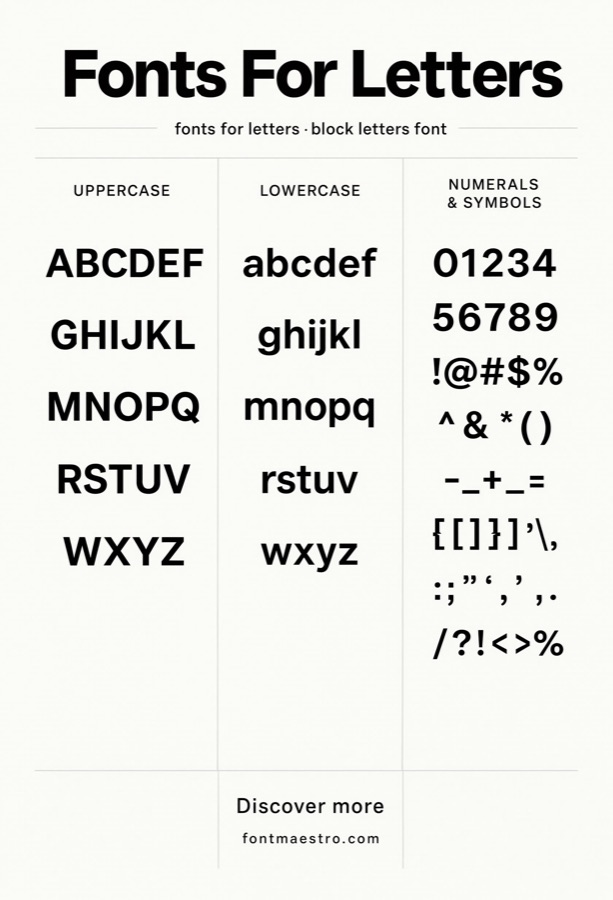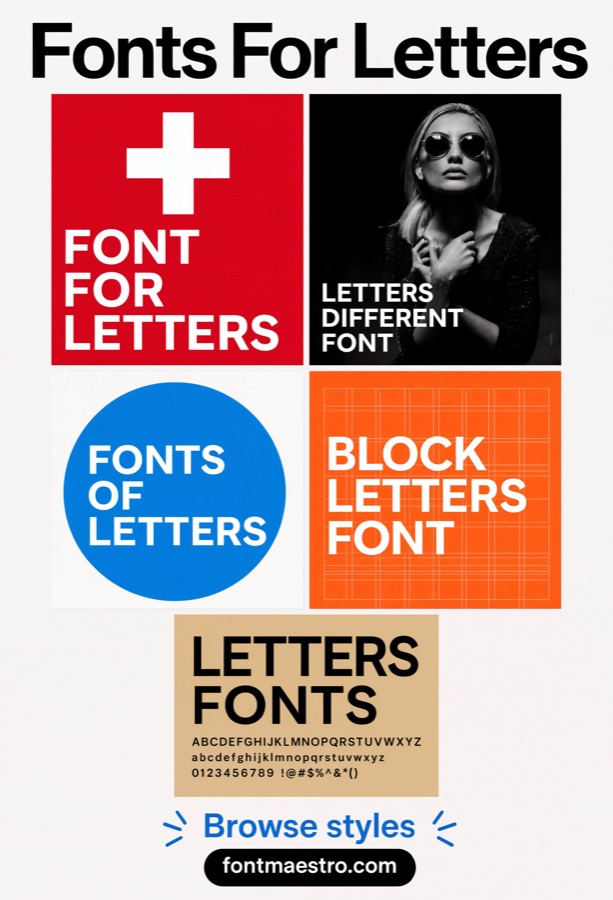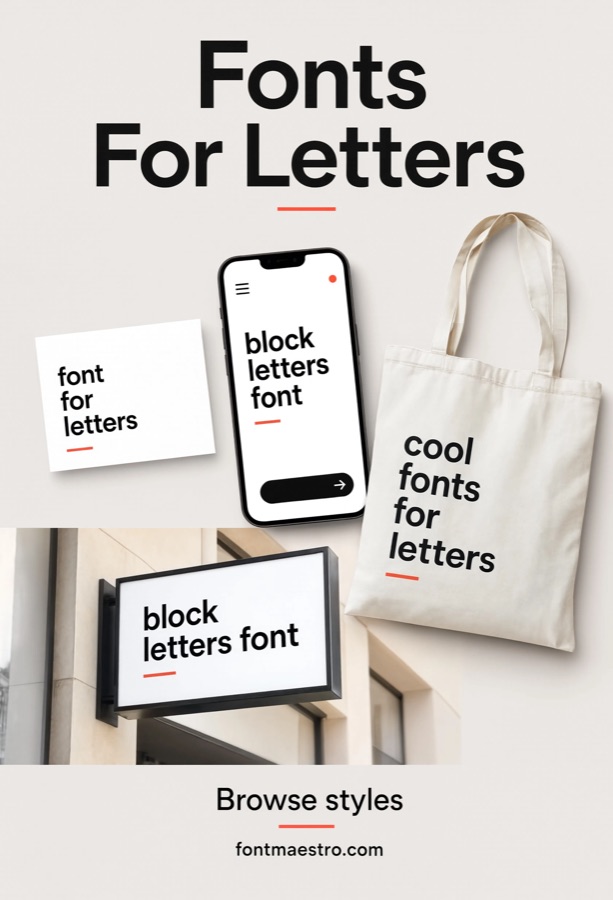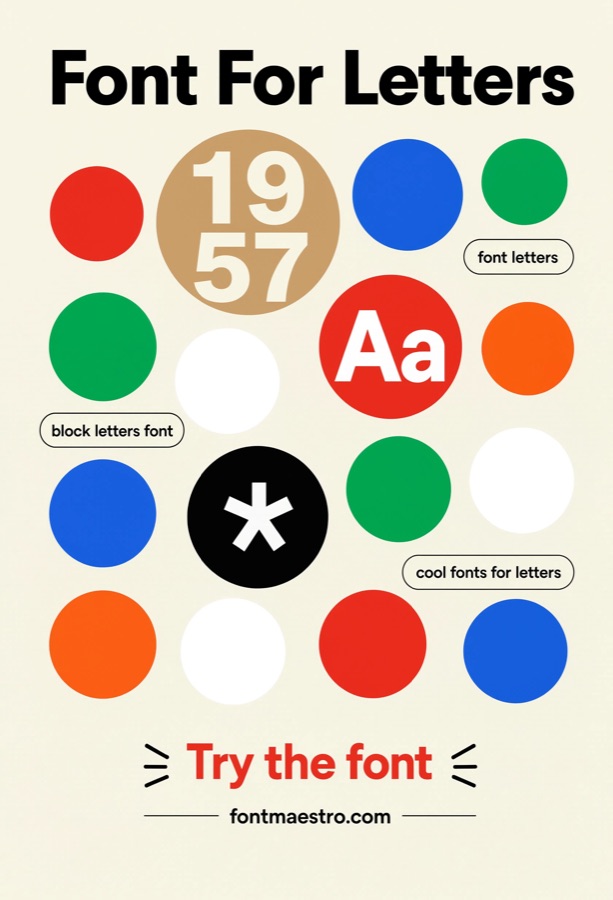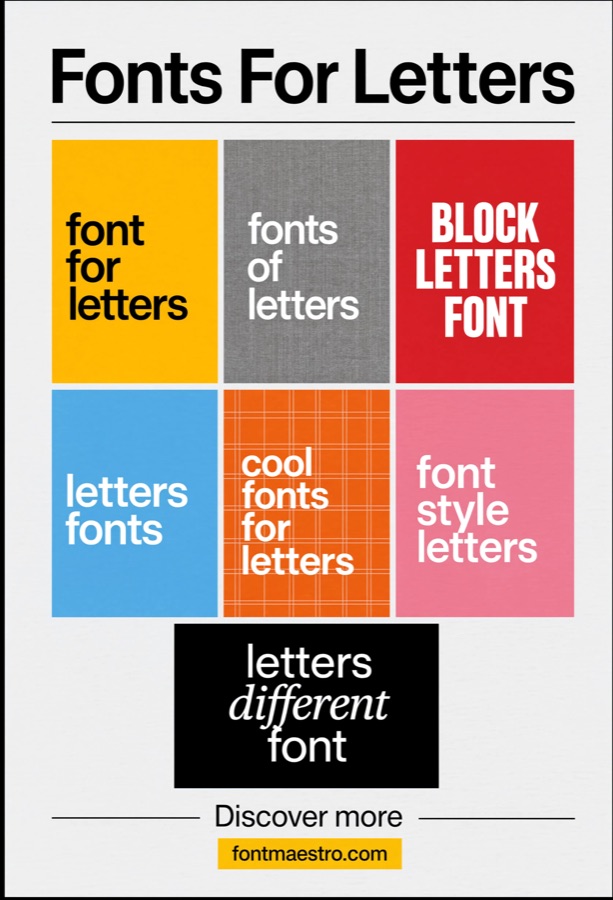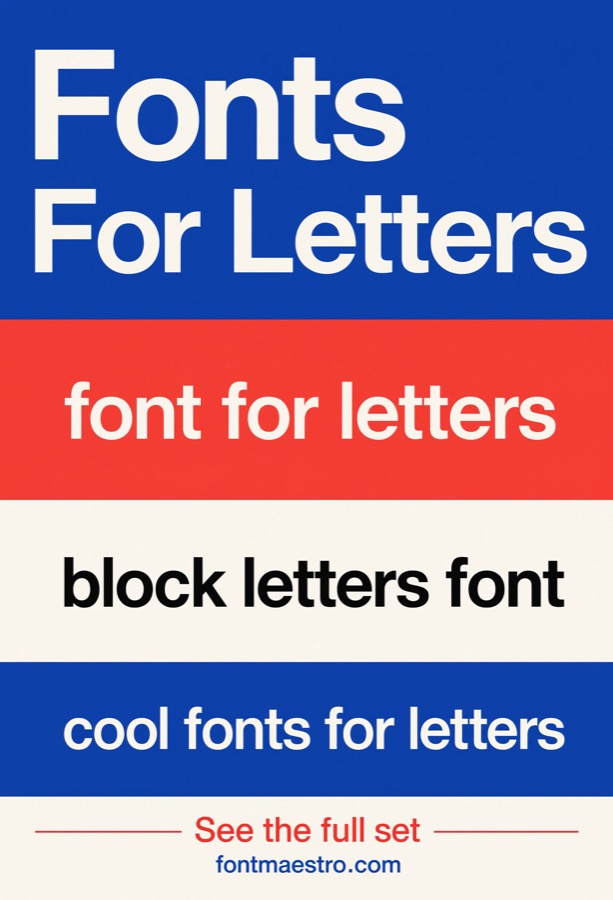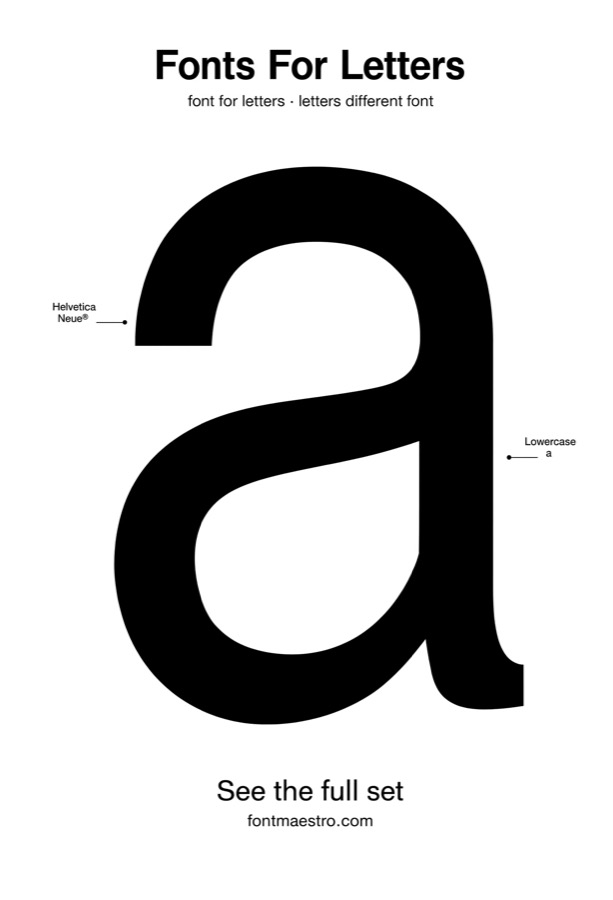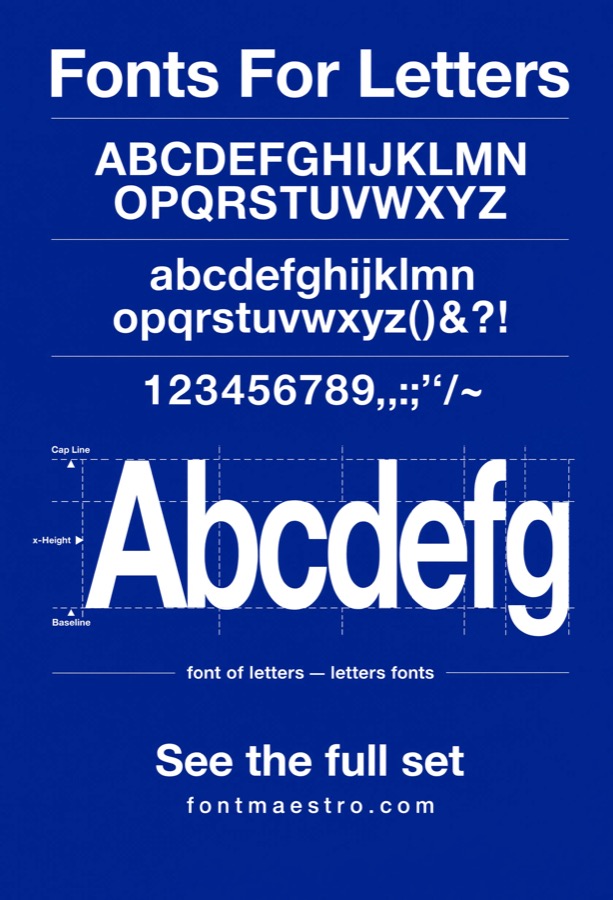
Search “font for letters” and you get thousands of results promising the perfect alphabet typeface. Most of them are decorative — great for a headline, useless the moment you need consistent letterforms across a whole brand, a poster series, or a grid layout.
There’s a reason type foundries keep coming back to one family whenever letterforms actually need to hold up under pressure: Neue Helvetica. It’s not flashy. That’s the point — every letter is drawn to work at any size, in any weight, next to any other letter, without calling attention to itself.
Quick answer: If you need a font built specifically around clean, consistent letterforms — not a novelty alphabet — Neue Helvetica is the reference standard. Below are six ways its letterforms actually get used, from single-letter monograms to full grid systems, so you can see where it fits before you commit.
Why “letters” is the wrong word for most alphabet fonts
A lot of fonts marketed for “letters” are really display fonts with 26 characters — designed to look good as a standalone word, not as a system. They break down the moment you need a lowercase “a” and a lowercase “e” to feel like they belong to the same family, or a heavy weight and a light weight to line up on the same grid.
Neue Helvetica solves that differently. It was built as a full family — dozens of weights and widths, all drawn from the same underlying skeleton — specifically so letterforms stay consistent no matter which weight or size you pull from.
Three things to check before picking any “font for letters,” Helvetica included:
Weight range. One weight is rarely enough for a real project — you need at least a regular and a bold that actually match, not two unrelated fonts pretending to be a family.
x-height consistency. If the lowercase letters look cramped or oversized next to the capitals, the font wasn’t drawn as a cohesive system — it’ll show in body text.
Each example below shows a different practical use for letterform-driven design work — not just what the font looks like in a specimen sheet, but where it actually earns its place.
Best for monograms and oversized initials. A single bold letter, blown up large, is where letterform quality is hardest to hide — every curve and terminal is on display at full size. Helvetica’s bold weight holds its shape even when scaled to poster size, which thinner alphabet fonts can’t do without looking hollow.
Full Character Set / Glyph Panel
Best for checking consistency before you commit. Before using any letters font across a real project, look at the full character set laid out together — not just a handful of hero letters. This is where mismatched x-heights and inconsistent stroke weights get exposed. Neue Helvetica’s full set stays even across every character.
Grid & Poster Systems
Best for editorial layouts and modular grids. Letterform fonts get tested hardest in grid-based design — headlines, captions, and body copy all sharing one typeface across a strict column structure. This is Neue Helvetica’s original use case, and it’s still where it performs best: neutral enough to not compete with the grid itself.
Best for wordmarks that need to read as timeless, not trendy. A logo built on solid letterforms ages better than one built on a display trend. Helvetica shows up in more corporate identity systems than almost any other typeface for exactly this reason — it doesn’t date the brand around it.
Circular & Badge Layouts
Best for stamps, seals, and badge-style marks. Letters set inside a circle or badge shape need even stroke weight in every direction — a font with inconsistent thick-and-thin strokes will look lopsided the moment it’s curved or centered inside a shape. Helvetica’s uniform stroke width holds up here.
Mood Boards & Style Presentations
Best for pitching a typeface before final layout. When you’re presenting type direction to a client or team, a mood board built around consistent letterforms communicates the tone faster than a single specimen line. Neutral letterforms like Helvetica’s photograph well against texture and color, which is why they show up so often in these boards.
Best for layout experiments built around concentric rings rather than a single stamp shape. A composition using several nested circles asks more of a letterform than one badge does — the letters have to hold their shape while repeated at different scales within the same piece. Neue Helvetica’s consistent stroke weight keeps every ring legible instead of the smallest one blurring into a smudge.